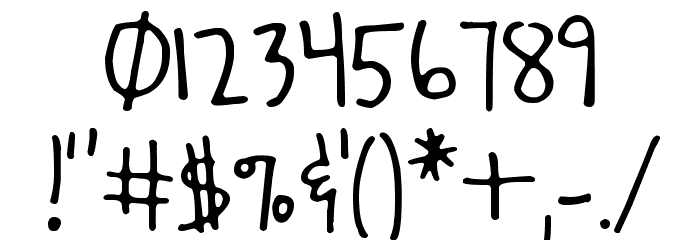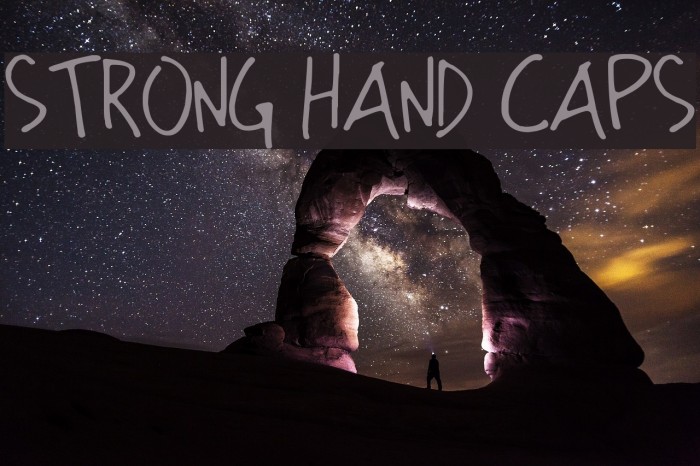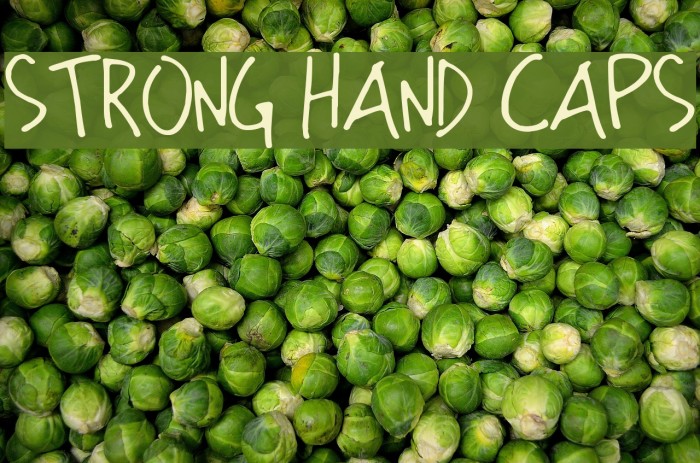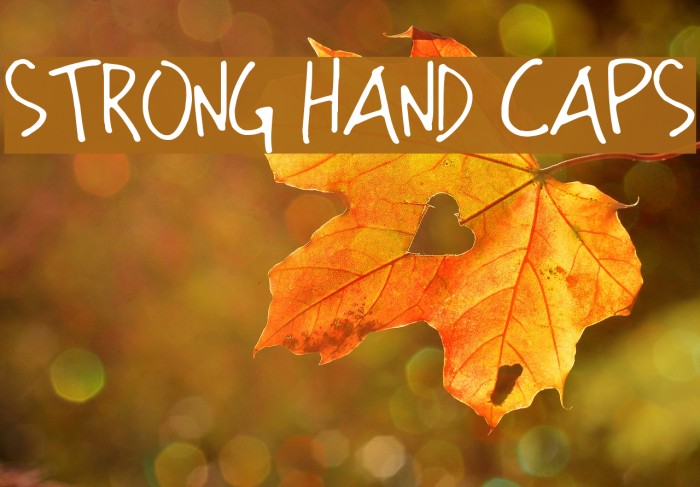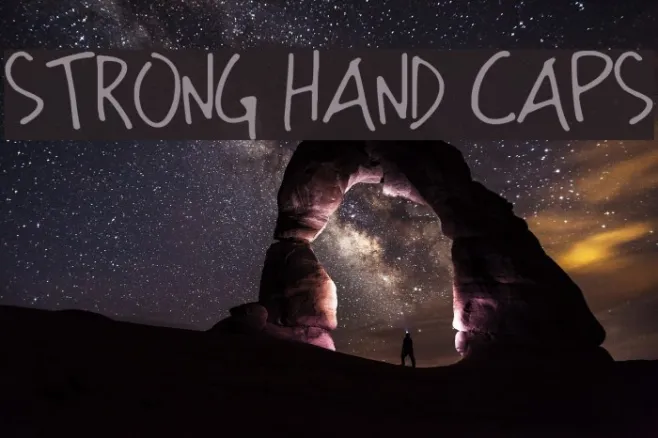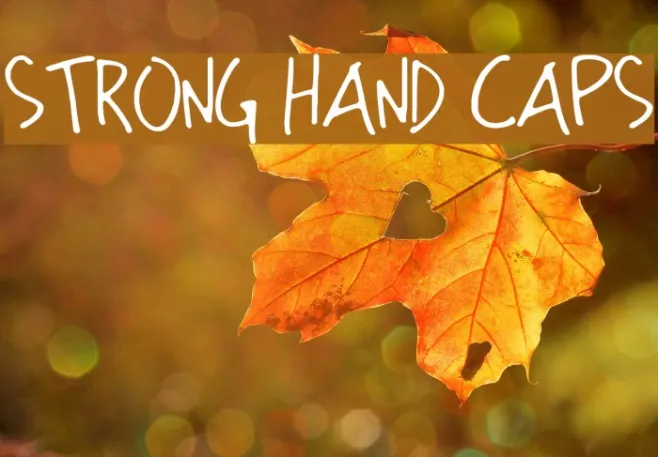
Strong Hand Caps Font
This font features a bold, handwritten style with a casual and playful appearance. The letters are slightly irregular, giving it a personal and authentic touch, reminiscent of marker or brush strokes. The uppercase and lowercase letters maintain a consistent style, with rounded edges and a slight slant, adding to its informal charm. The numerals and special characters are equally expressive, matching the overall aesthetic. This font is ideal for projects that require a human touch, such as invitations, posters, or social media graphics.
A bold, handwritten font with a playful and casual style.
- Proposed Projects: Perfect for invitations, posters, social media graphics, and any project needing a personal touch.
- Category: Handwritten
- Overall Style: Casual
- Use Case: Headlines, Logos, Informal Text